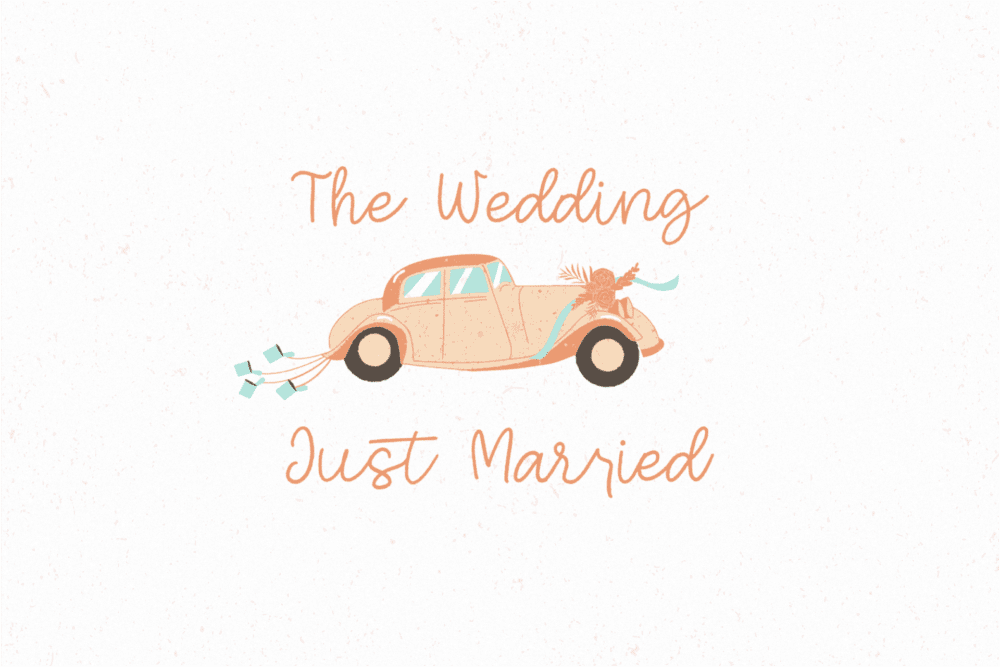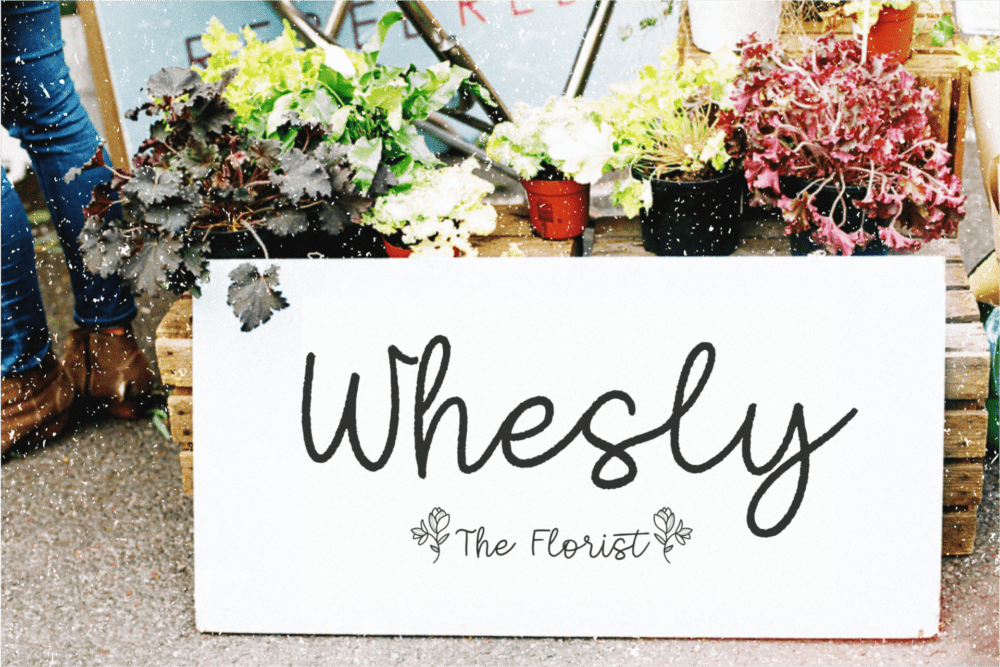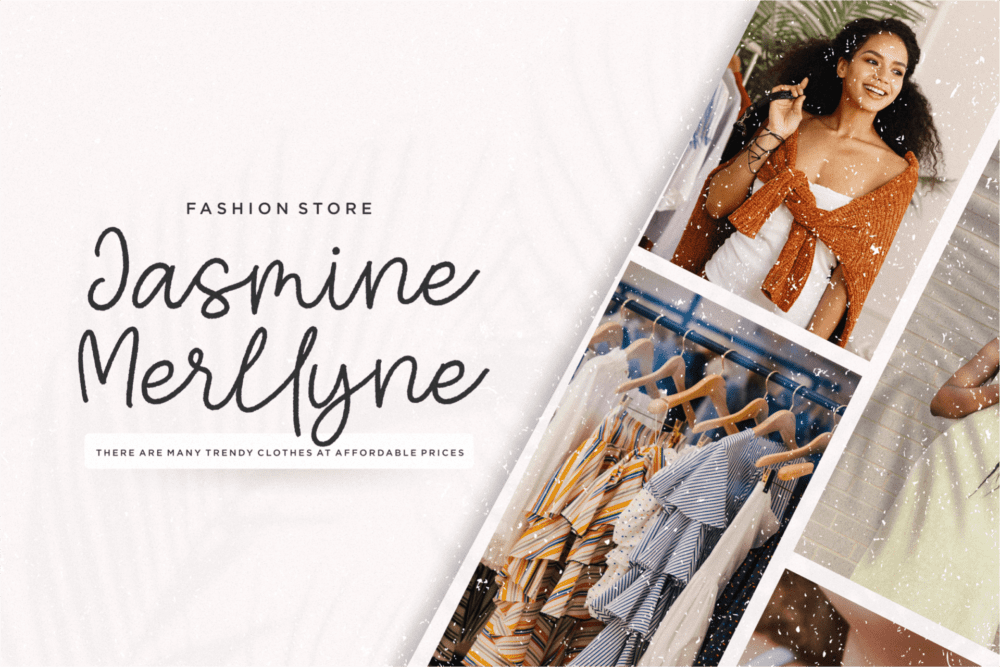
Spearmint Font
Spearmint is a Brush Handwritten Font. Spearmint is perfect for product packaging, branding project, megazine, social media, wedding, or just used to express words above the background.